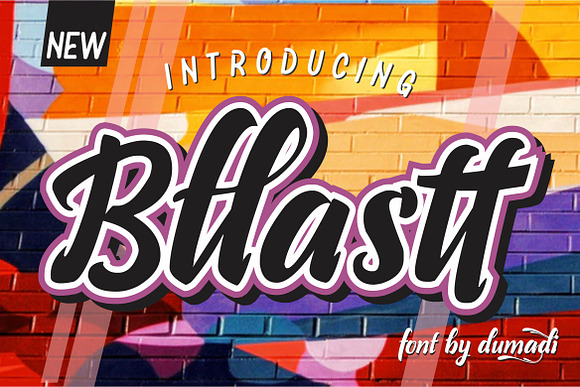
Bllastt Font
Bllastt Font is perfect for explosive action movie titles, extreme sports brand logos, high-energy gaming graphics, dynamic music festival posters, intense workout gym signage, powerful energy drink packaging, adrenaline-fueled entertainment venues, extreme adventure tour materials, action-packed promotional campaigns, and high-impact product launches. This explosive typeface excels in applications where raw energy, maximum impact, and unstoppable force are fundamental brand characteristics.
What makes Bllastt Font exciting is its devastating visual impact that perfectly captures the explosive energy and unstoppable momentum of high-octane experiences through aggressive letterforms that appear to detonate with kinetic force. The font features dramatically bold character construction with explosive details and dynamic angles that create immediate visual shock waves and commanding presence. Its intense personality makes it perfect for brands that refuse to whisper when they can roar, delivering maximum impact for audiences seeking the most extreme and energetic experiences available.
The Bllastt Font family typically includes Ultra Bold and Black weights, often featuring heavily stylized variations with enhanced explosive effects and dynamic distortions that amplify the high-impact aesthetic. Many versions include alternate characters with blast-inspired styling, special symbols related to energy and power, and decorative elements that create visual explosions and dynamic movement patterns. Some collections feature outline variations and special effects that maximize the explosive visual impact for maximum dramatic effect.
Whether you're creating brand identities for extreme entertainment companies, designing promotional materials for high-energy products, or developing content that celebrates maximum intensity and explosive experiences, Bllastt Font Free Download provides the devastating character that resonates with audiences seeking the most intense, high-impact entertainment and lifestyle experiences. Its overwhelming presence makes it perfect for brands that specialize in delivering maximum adrenaline and unforgettable intensity. The font's ability to convey both explosive power and controlled direction makes it particularly valuable for extreme sports companies, energy brands, and entertainment venues seeking to create experiences that push human limits while delivering safe, professionally managed thrills that leave customers exhilarated and eager for more explosive adventures.